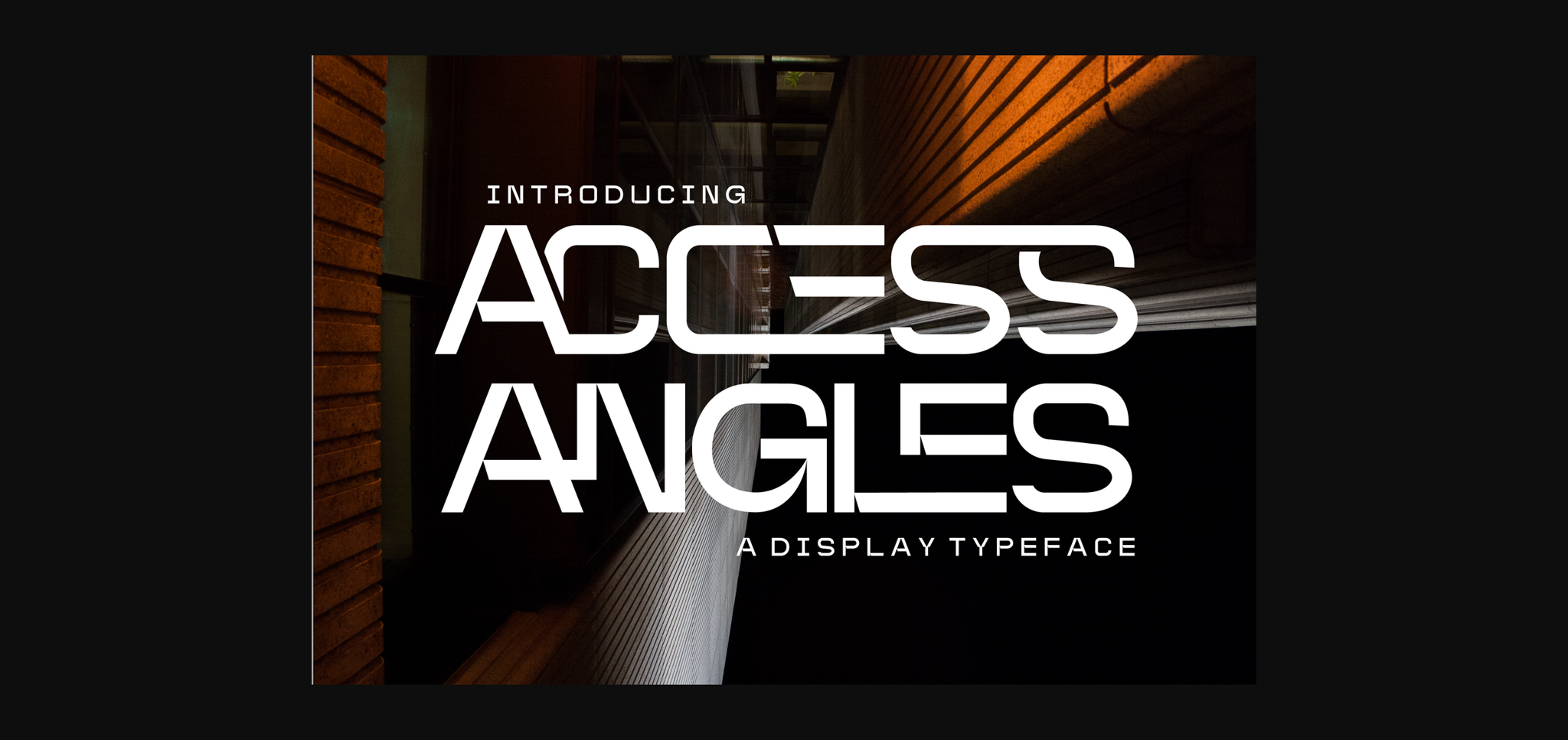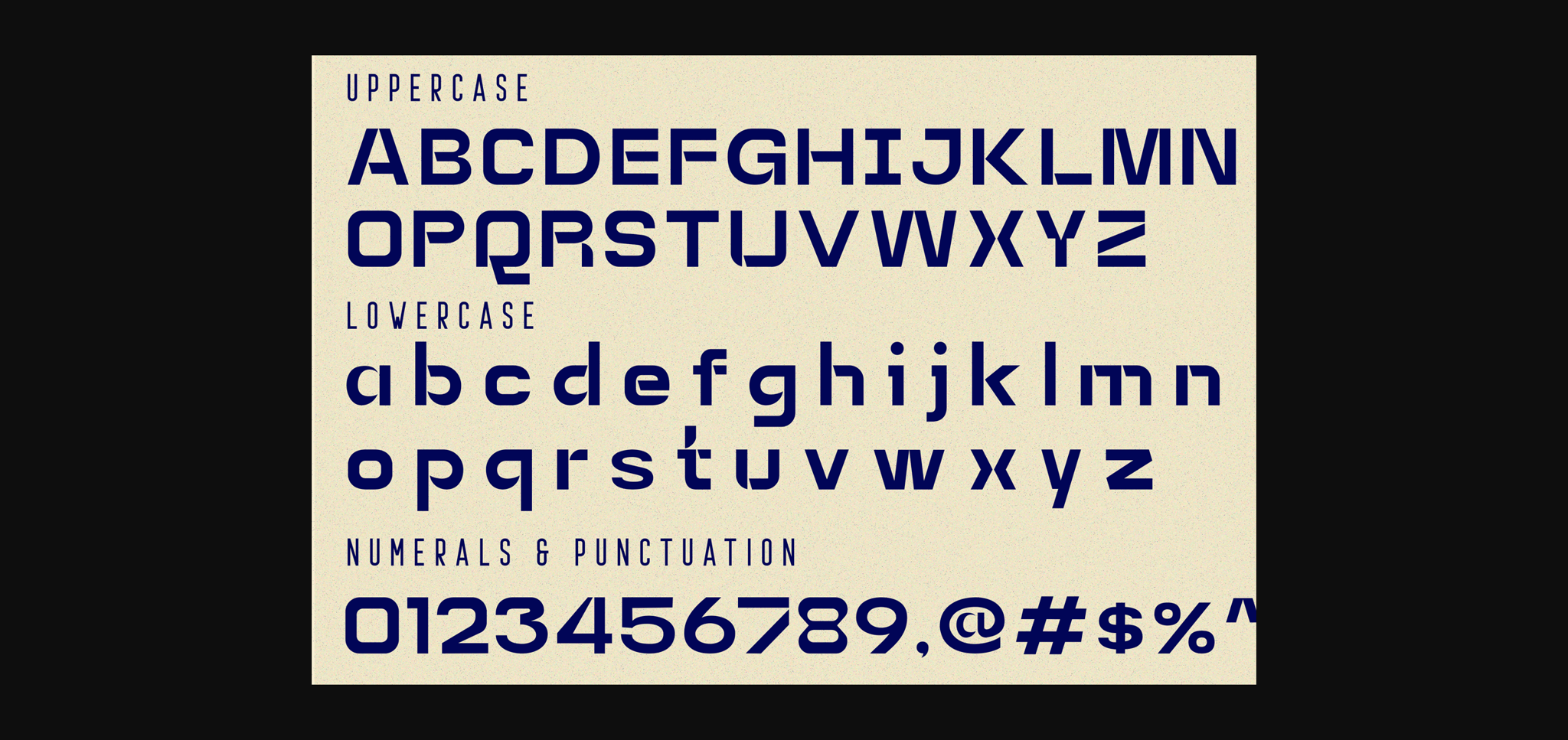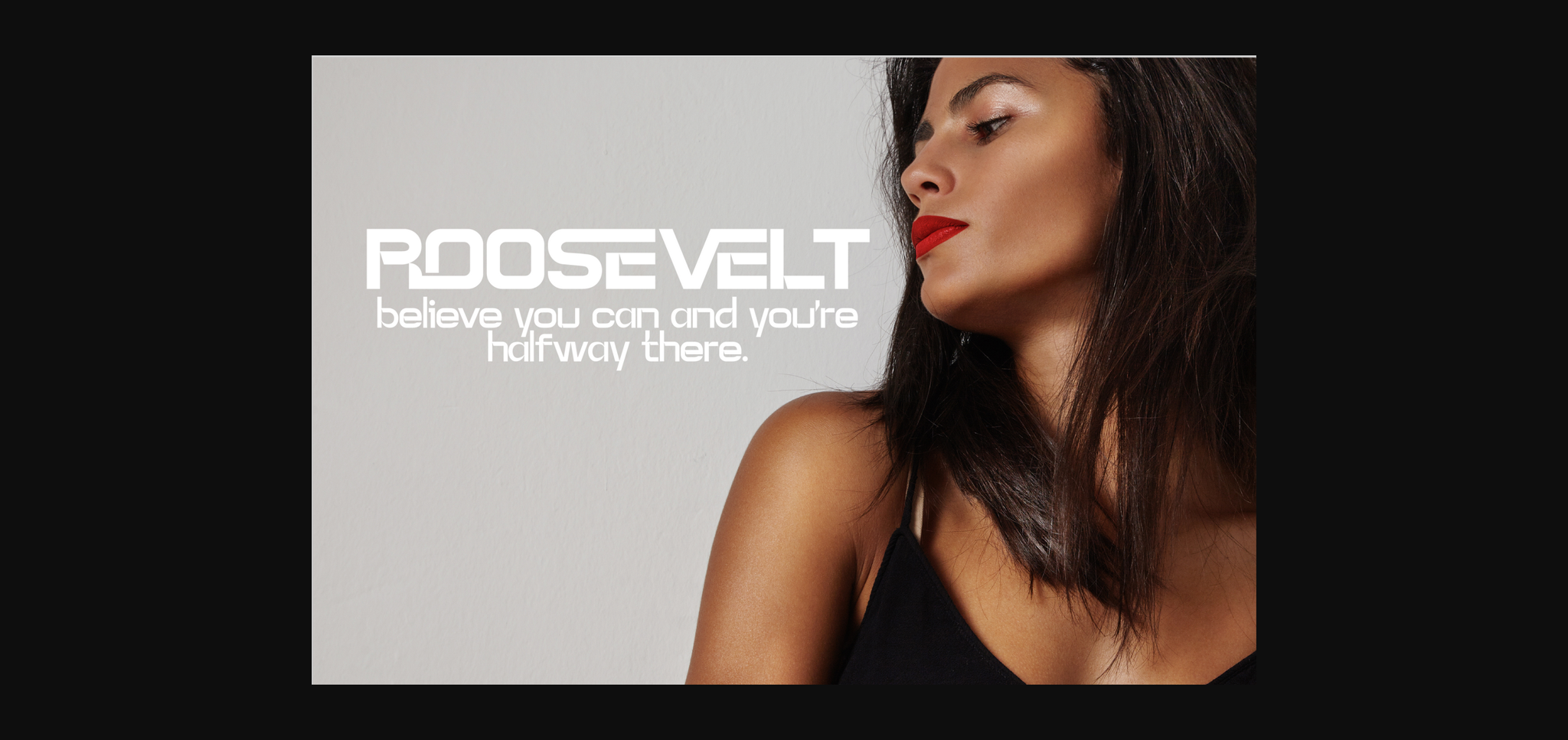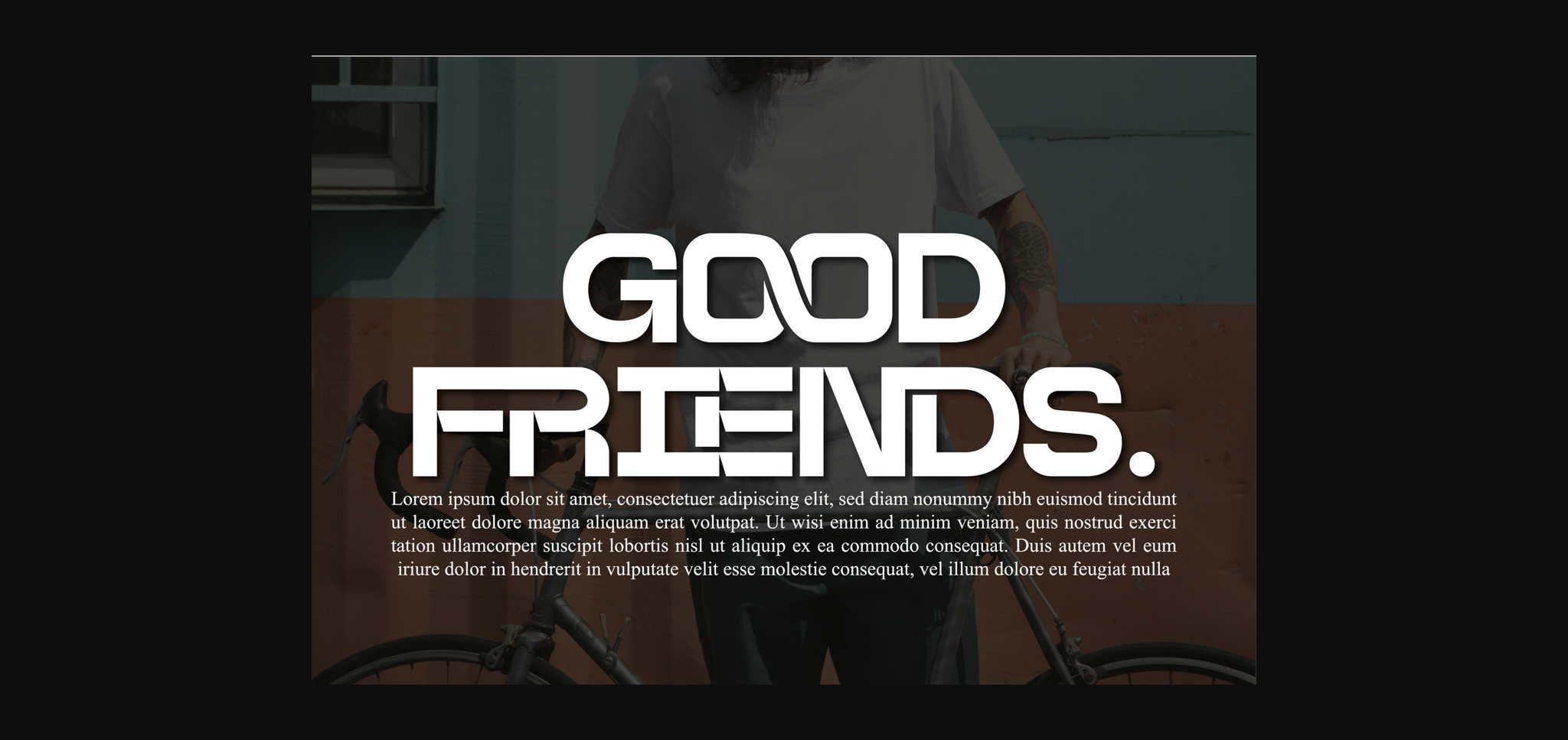
About Access Angles Font
Access Angles is a sans serif font that will give your projects a futuristic and modern look. It is a light and minimalist logo font family with unique lowercase that will make your logo and design looks more clean and simple. You can use this font for any purpose such as social media, business cards, web designs, logos, flyers, crafts and so much more.